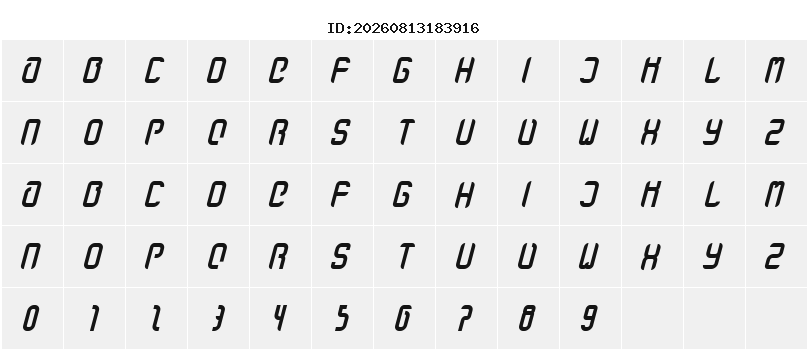
• Font Name: stanze fett
• Full Font Name: stanze fett
About stanze fett.ttf
stanze fett.ttf is a modern, elegant sans-serif font designed for ultimate readability and visual harmony. Perfect for branding, headlines, web design, and print materials.